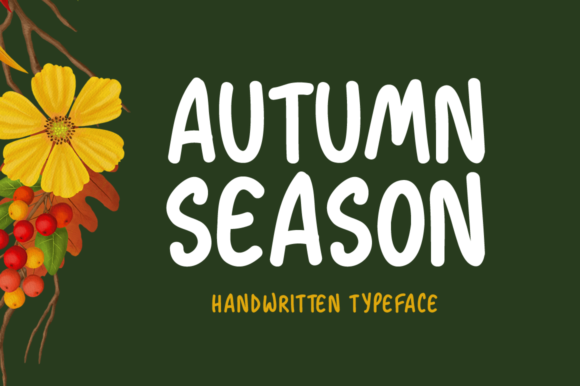
Fall in Love with Autumn Season Font
As a designer, I’ve had my fair share of struggles when working on projects. But one of the most frustrating experiences was when I was tasked with creating a fall-themed design for a client’s autumn sale campaign. I spent hours scouring the internet for the perfect font, but nothing seemed quite right. That was until I stumbled upon the Autumn Season font. ✨
It was love at first sight! The clean and friendly display font instantly captured the cozy essence of fall, and I knew I had found the perfect fit for my project. In this article, I’ll share my experience with Autumn Season font, its features, and how to make the most of it in your designs.
• ✅ The font’s clean and modern design makes it perfect for a wide range of autumn-themed projects, from invitations to social media graphics.
• ✨ The friendly and approachable feel of the font makes it ideal for designs that require a personal touch.
• 🎉 The font’s versatility allows it to be used in both digital and print designs.
While Autumn Season font is an excellent choice for fall-themed designs, there are a few things to keep in mind: 🤔
• ⚠️ The font may not be the best choice for very formal or traditional designs, as it has a relatively casual feel.
• ⚠️ Some users may find the font’s simplicity too plain for their taste.
The Story Behind Autumn Season Font
Autumn Season font was designed with the goal of capturing the cozy essence of fall. The designer aimed to create a font that would evoke feelings of warmth and comfort, perfect for autumn-themed designs. The result is a clean and friendly display font that celebrates all things fall.
Q: What type of designs is Autumn Season font best suited for?
A: Autumn Season font is perfect for a wide range of autumn-themed designs, including invitations, social media graphics, and print materials.
Q: Is Autumn Season font available in different styles?
A: Yes, Autumn Season font comes in a range of styles, including bold and italic.